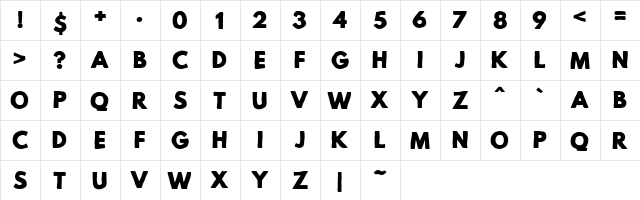
Mild Life Regular Personal Use Regular
Design Context for Mild Life Regular Personal Use Typeface
Mild Life Regular Personal Use takes a measured approach to typography — its balanced proportions and neutral character make it a reliable workhorse for both digital and print work.
Pro Tip: Use Mild Life Regular Personal Use in both headline and body roles to test its range before committing to a single application.